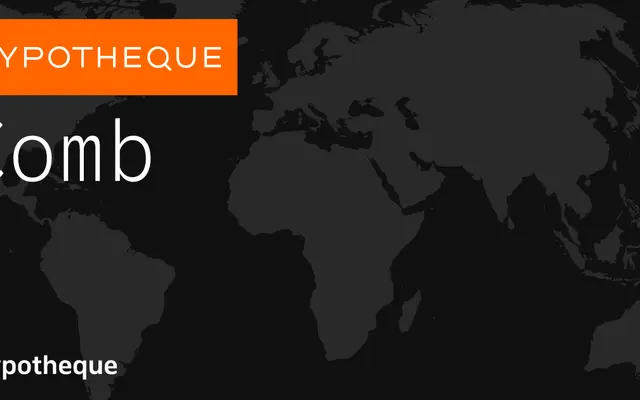
A five-weight sans-serif family from Typotheque with a matching italic for each weight, spanning Thin to Black.
Comb offers ten styles across five weights from Thin to Black, each paired with an italic, covering a broad tonal range for editorial and identity work. The family includes a variant called Forms, suggesting alternate or simplified letterform options for particular contexts. Typotheque's characteristic attention to multilingual typography likely underpins its glyph coverage, supported by city-named specimen settings across global scripts.
Comb appears to be a humanist sans-serif with a range of weights and italics across a large Latin-based family; the naming convention and Typotheque's typical output suggest refined text-oriented sans design.